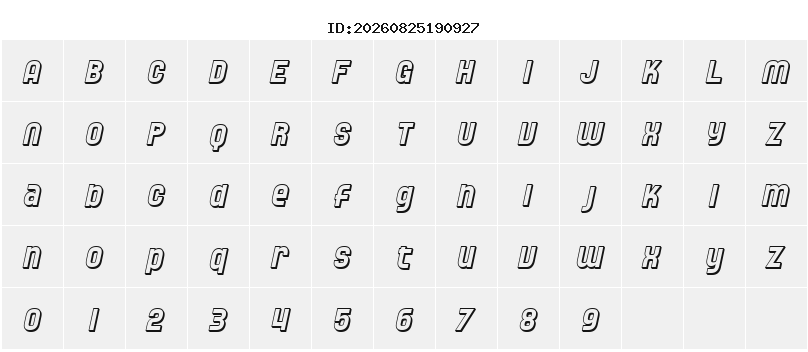
SF Speedwaystar Shaded Preview
• Font Name: SF Speedwaystar Shaded
• Font Style: Oblique
• Font ID: ShyFontsTypeFoundry: SF Speedwaystar Shaded Oblique: 2000
• Full Font Name: SF Speedwaystar Shaded Oblique
• PostScript Name: SFSpeedwaystarShaded-Oblique
• Character Count: 251
About SF Speedwaystar Shaded.ttf
SF Speedwaystar Shaded.ttf is a modern, elegant sans-serif font designed for ultimate readability and visual harmony. Perfect for branding, headlines, web design, and print materials.